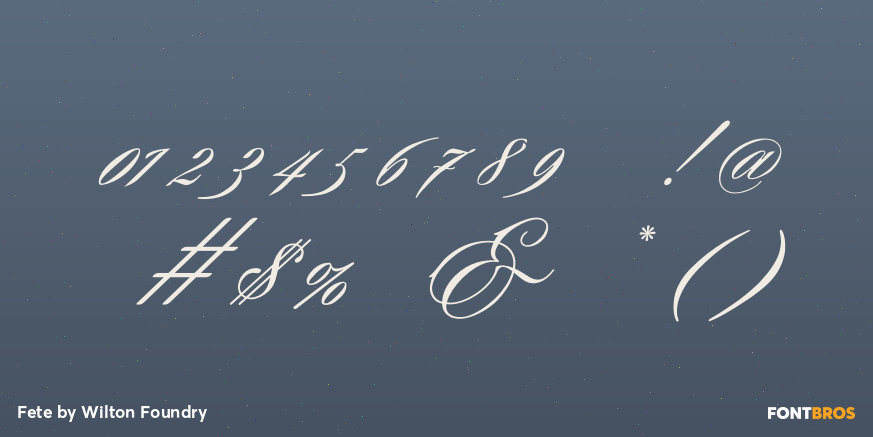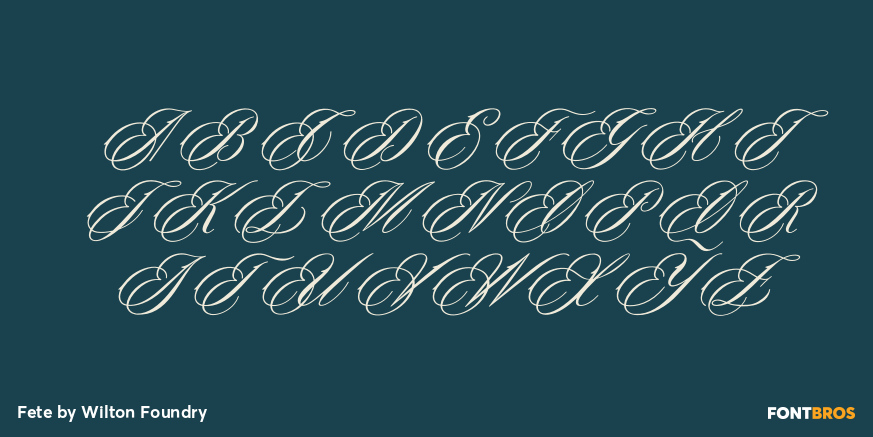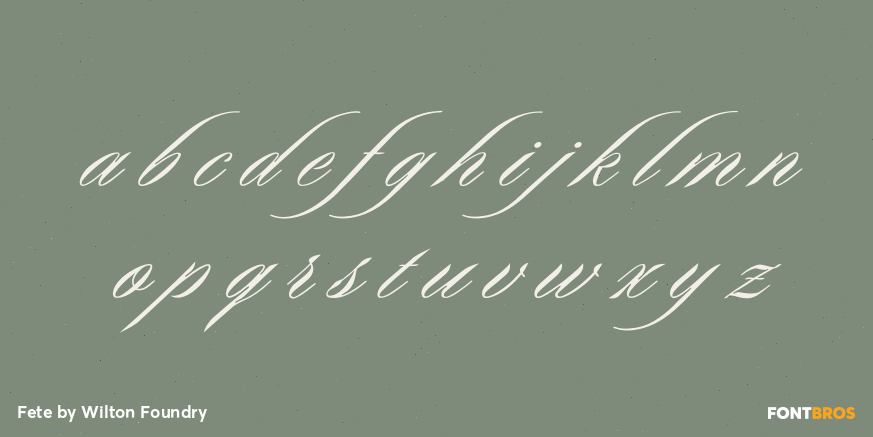
Fete
Font Family by Wilton Foundry
Fete Regular presents itself as a distinctive script font with an unusual luxurious flare. Fete Super was deliberately designed to further express exuberance. The name comes from the French "f